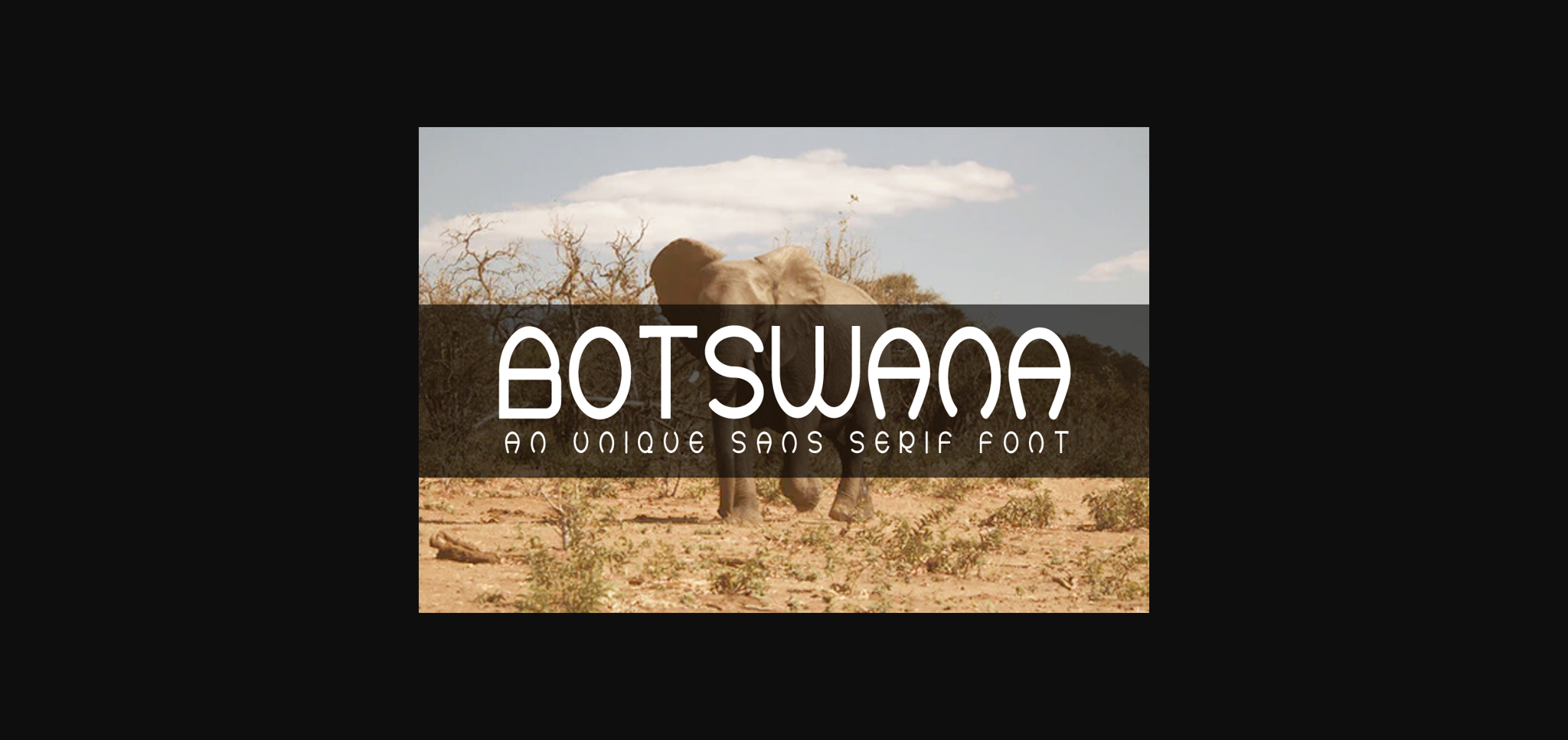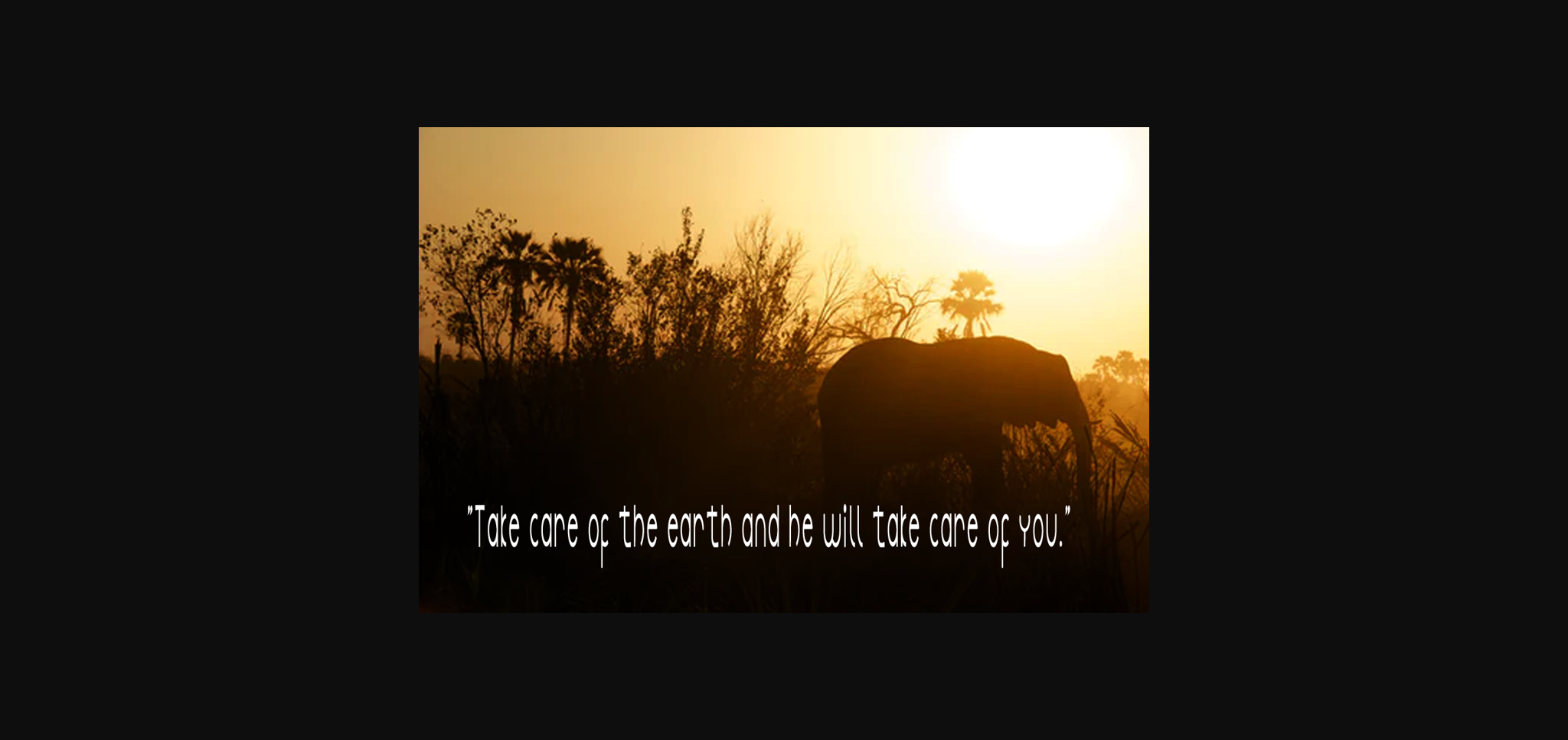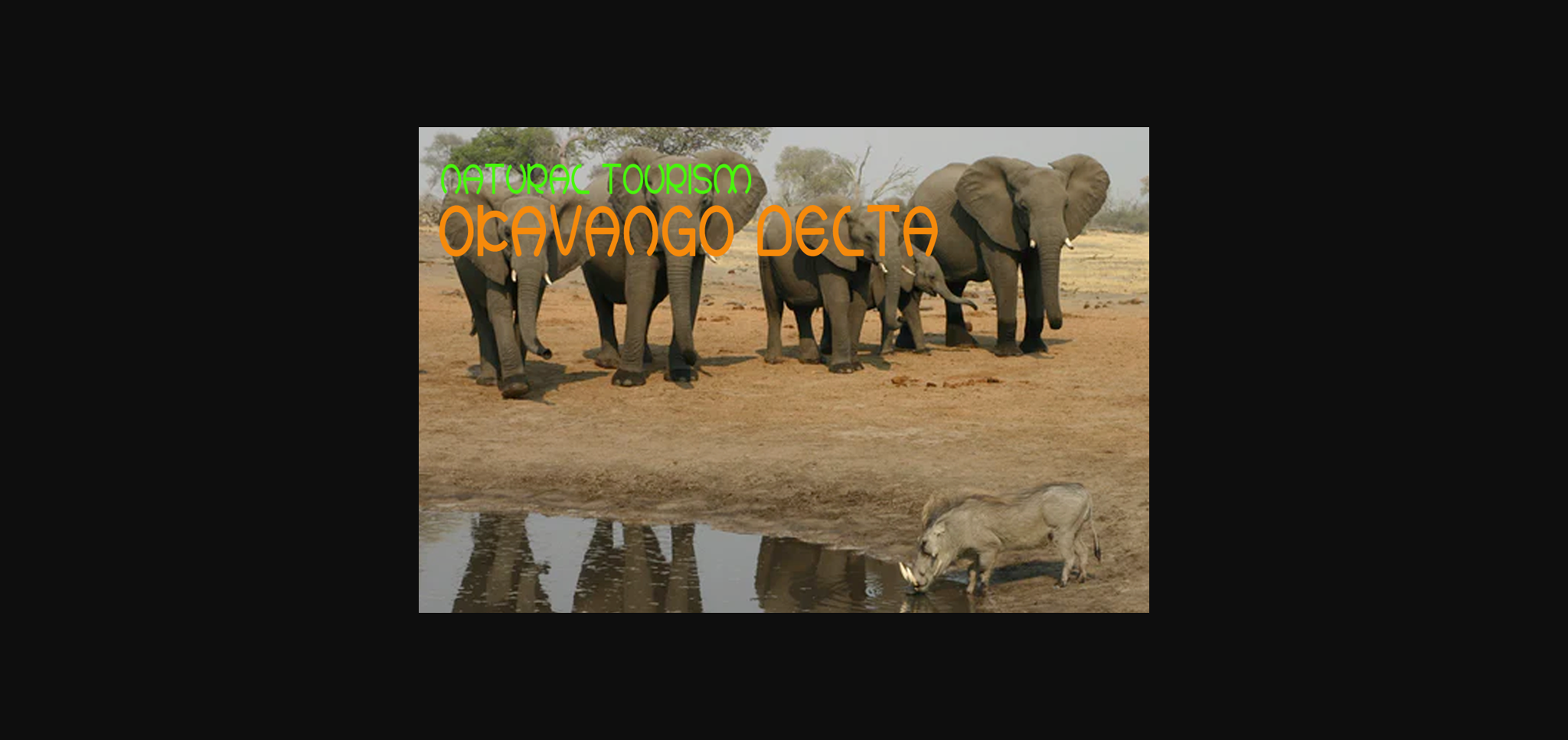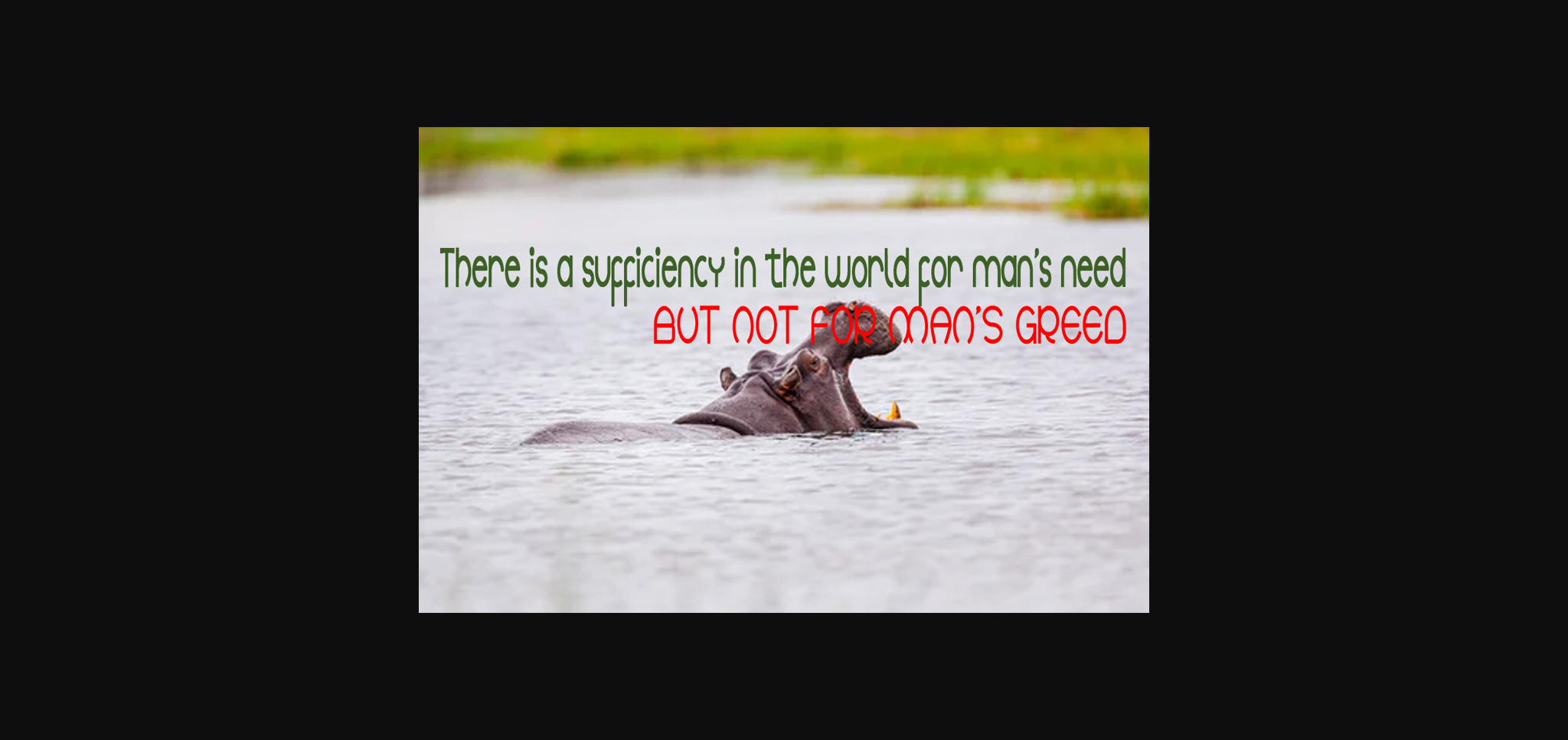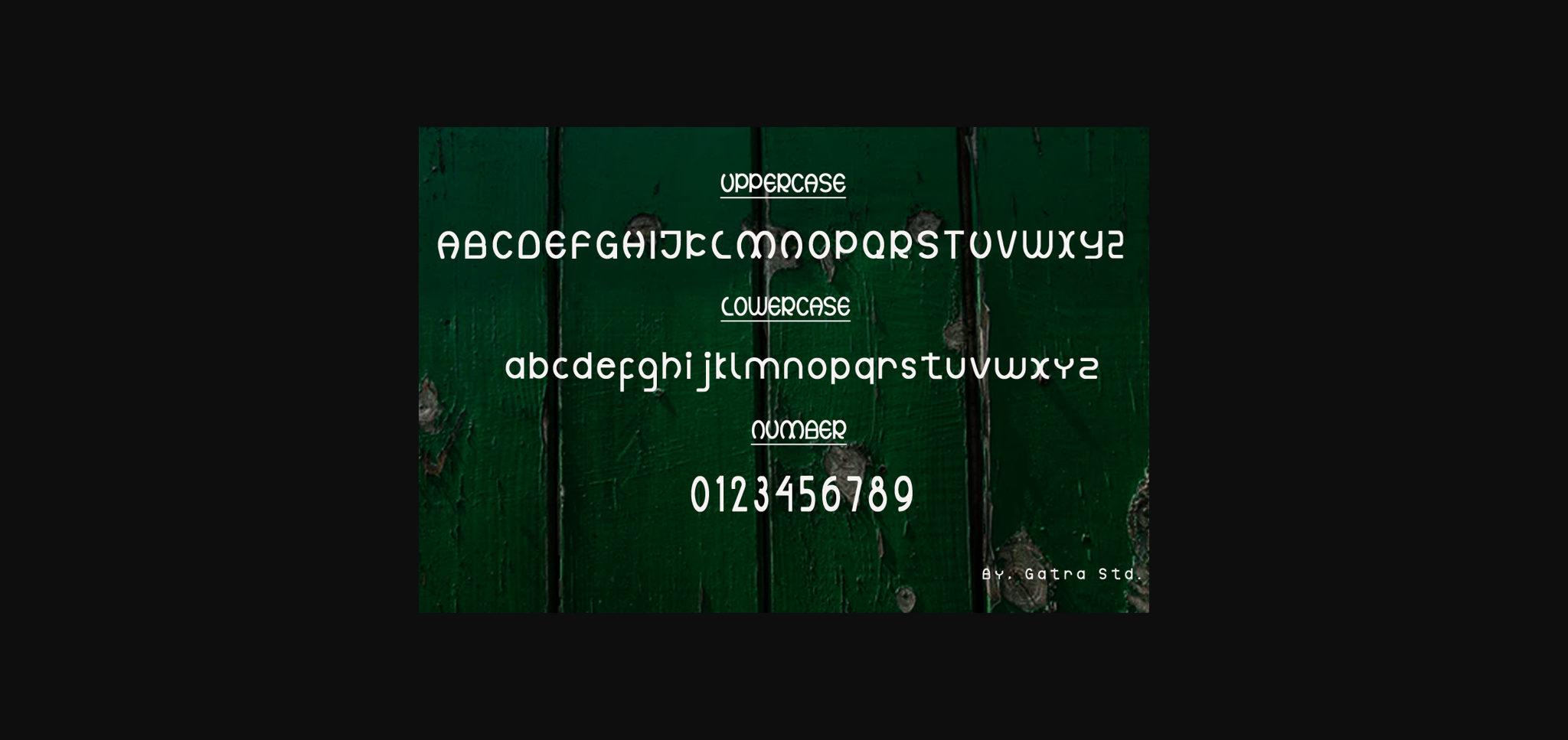
About Botswana Font
Botswana is a modern and unique sans serif font. It can easily be matched to an incredibly large set of projects, so add it to your creative ideas and notice how it makes them stand out!